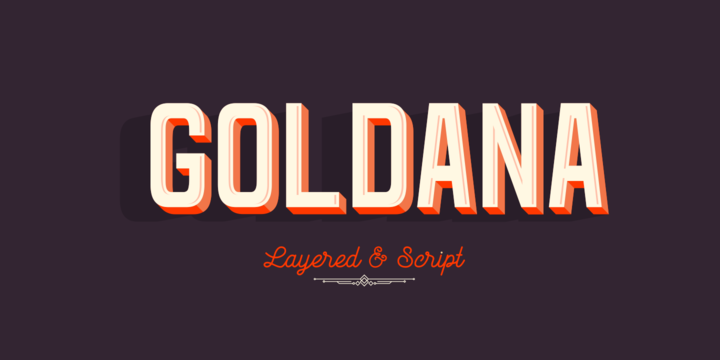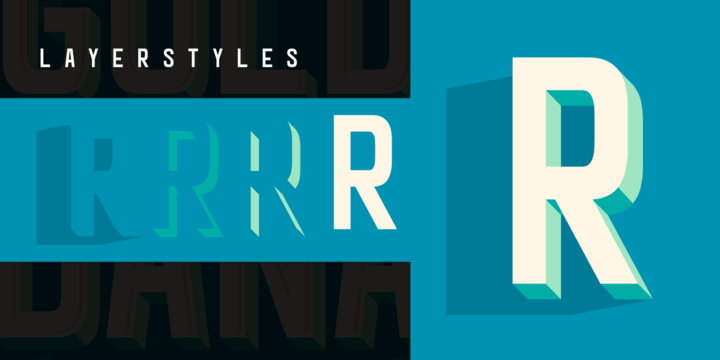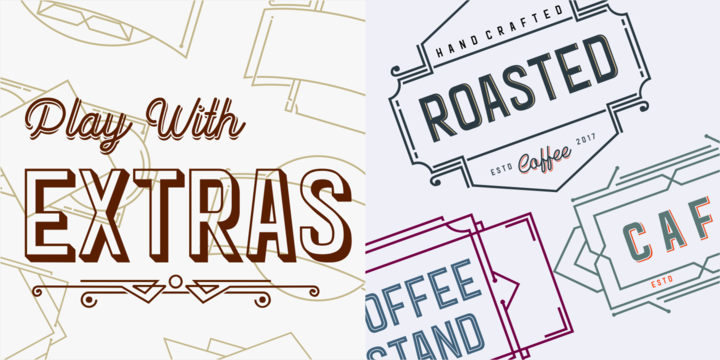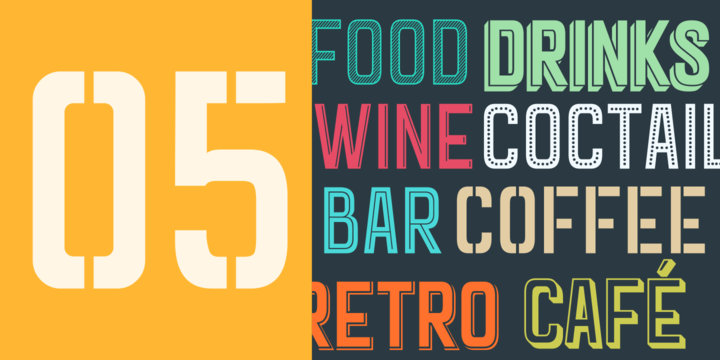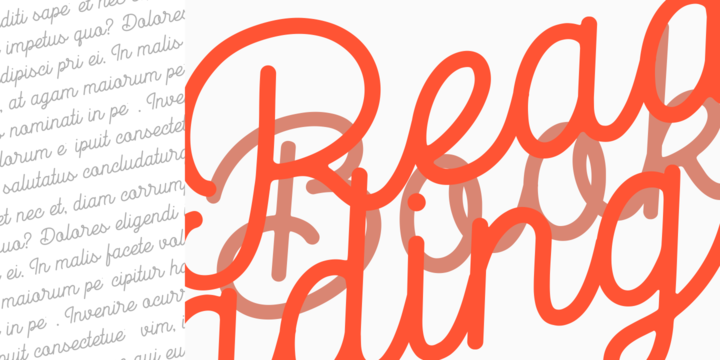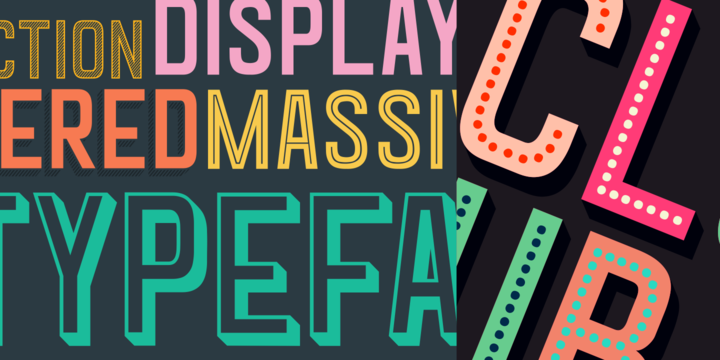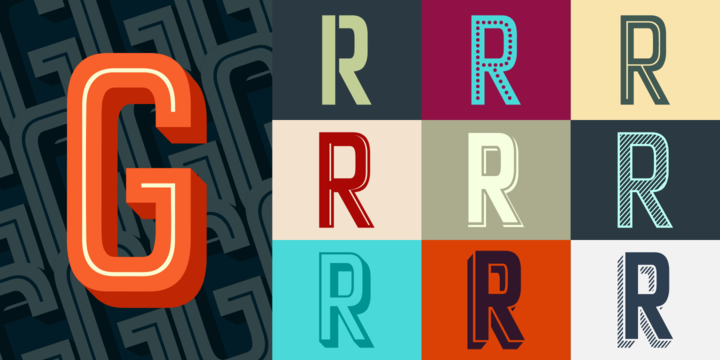
Goldana Font Family
Goldana is a display layered font inspired by art deco. Base layer is regular, add a extrude and extrude shadow to create a dimensional look. Several of the style can be mixed and match together to look different style and details, there are several font that have a stand alone styles and script. The Script fonts is also equipped with opentype features. The Shadow, drop strip and Stencil styles are not meant to be layered. Play with the extras collection to create badge, vintage feels and art deco style.